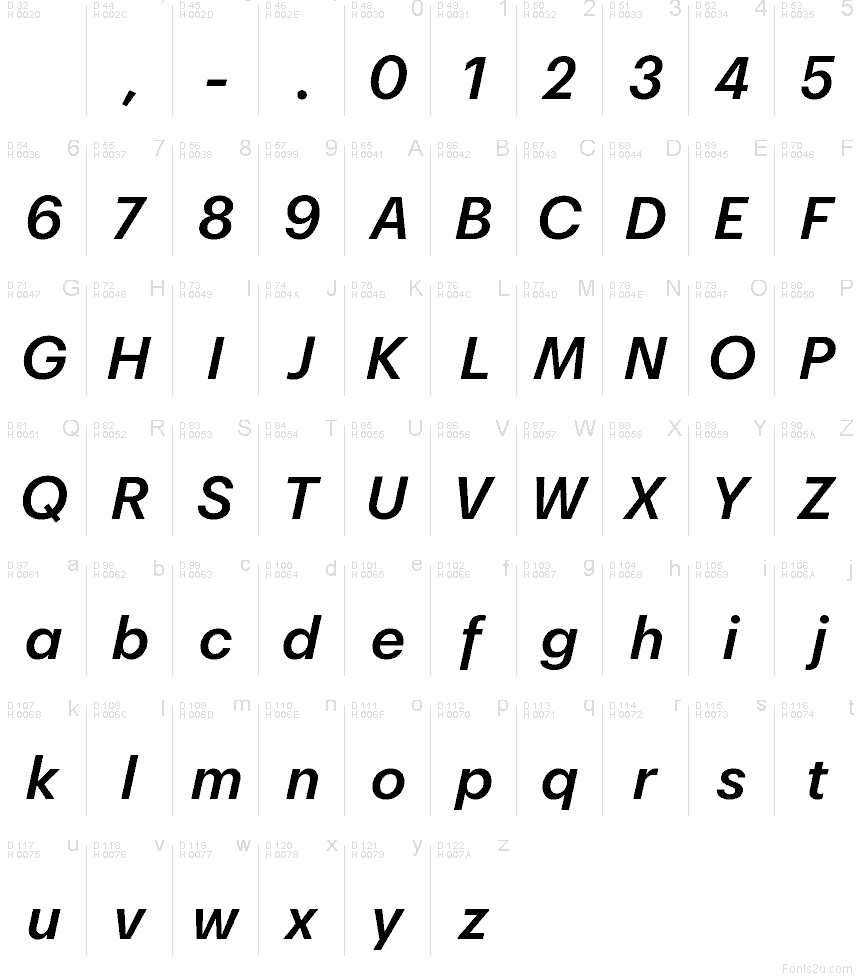
Encamp Test SemiBold Italic
Encamp Test font by Punchform is a free italic sans serif typeface that gives you emphasis without shouting. Its lean, forward-leaning letters have a clean, utilitarian feel—like a neatly handwritten note translated into crisp digital strokes. The gentle slant and slightly condensed shapes slip neatly into tight spaces, so you can add hierarchy, side comments, or secondary labels without eating up your layout. It’s the sort of font that quietly does the hard work: clear, unfussy, and consistently readable.
Using Encamp Test, this free font shines on UI labels, infographics, photo captions, sidebars, editorial callouts, and lightweight branding. The steady rhythm of its angled forms guides the eye along a line, making fast-scanning content easier to digest. It works beautifully in small to medium sizes, especially when paired with a neutral upright sans serif for body text—use Encamp Test for accent lines and navigational text to keep your typography organized and purposeful.